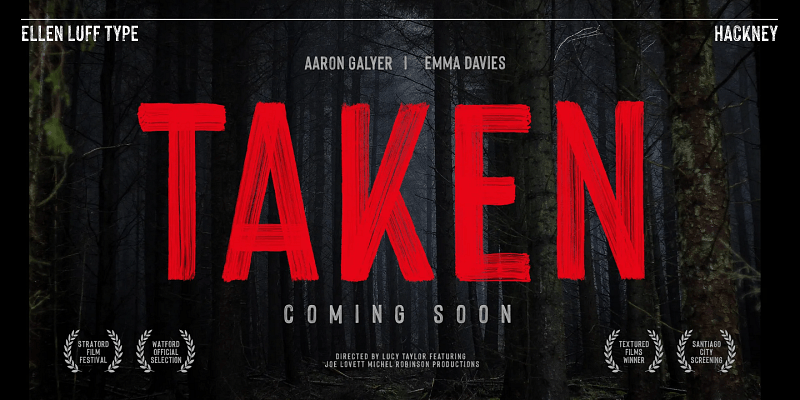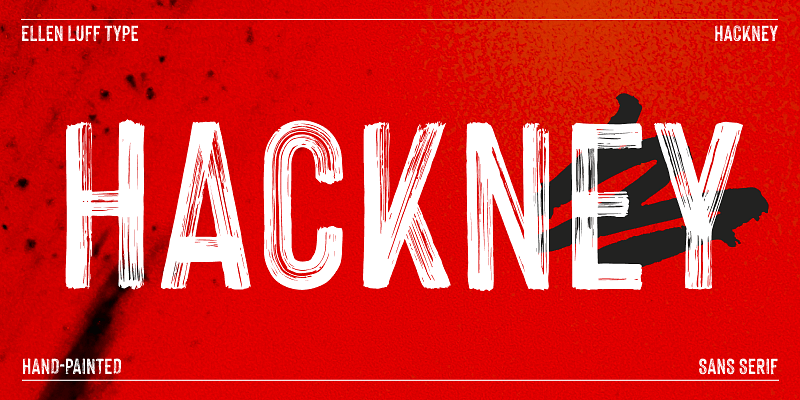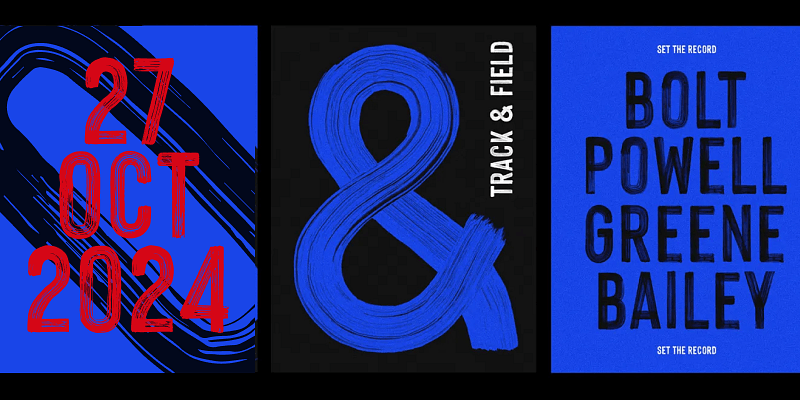
Hackney is an entirely hand-painted sans serif. A raw, bold, condensed design with brushy imperfections and an earthy realism. It keeps all the incredible definitions of real painted strokes as a transparent texture, giving you a proper hand-painted effect without having to do anything (or go near paint). Whether large or small, Hackney is perfect for adding texture to bold downtown character or personal artisanal flair, from signs to packaging and advertisements to posters.